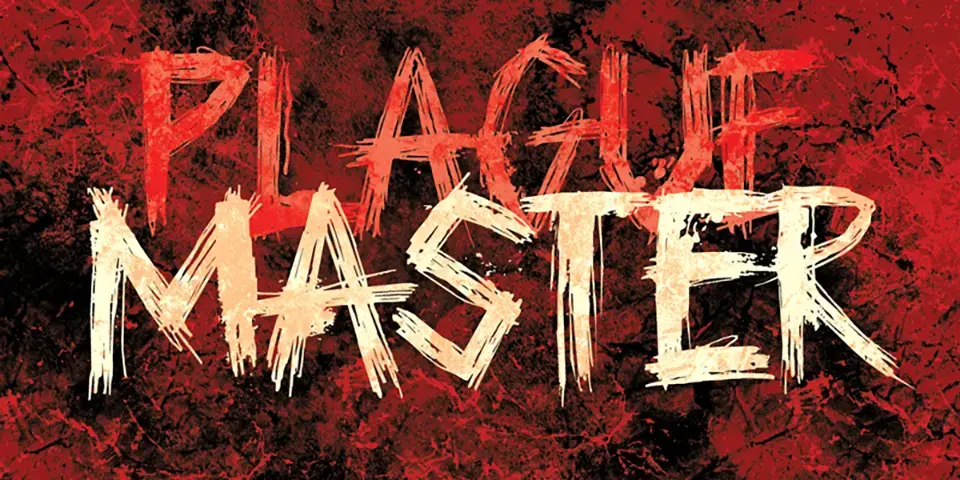
DK Plague Master Font
Designed by Hanoded
This typeface thrives in haunted house promotional posters, heavy metal merchandise, and chilling book covers where the design must evoke fear. The raw, splintered strokes make it a striking option for large headlines. Conversely, due to its abrasive texture and cramped spacing, it is a poor choice for lengthy body copy or formal branding, as reading it in small sizes quickly strains the eyes. [whatfontis](https://www.whatfontis.com/FF_DK-Plague-Master.font)
Horror movie posters and title cards
Heavy metal album artwork
Haunted house promotional materials
Dark-themed graphic novel covers
Long paragraphs of body text
Professional or corporate branding
Minimalist web interfaces
Perfect for film, halloween, and headline, with a dark and brush style.